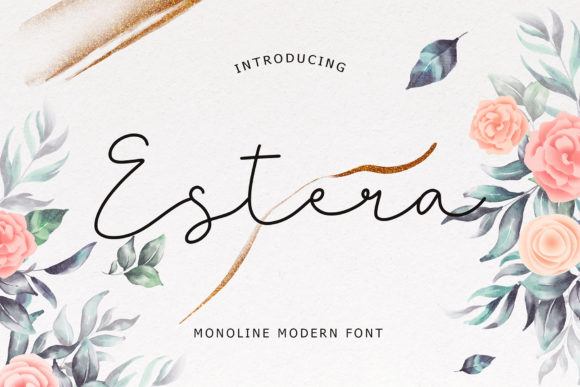
Estera Font
About Estera Font
Estera is a romantic and dreamy handwritten font. It has delicate and flowing characters, and as a result, it will match any design that needs a personalized touch.